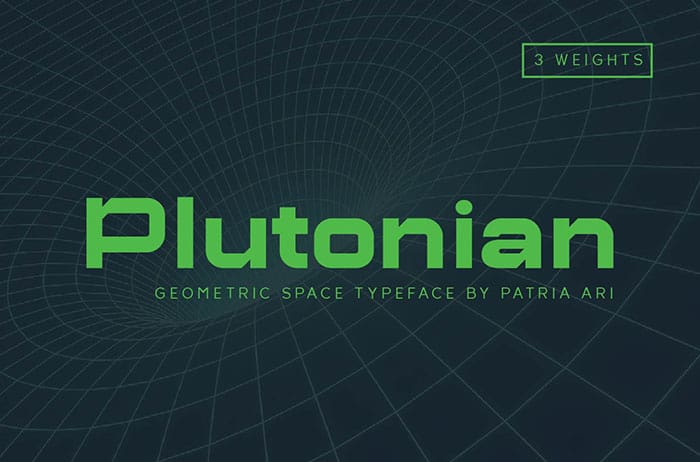
Plutonian Display Font
Plutonian is a Display Font inspiring from space aircraft theme, Plutonian was made with simple geometric shapes and come with 3 different weights. Thanks to Patria Ari Typestudio for sharing this font! Take a look at this portfolio for more of his stunning fonts.